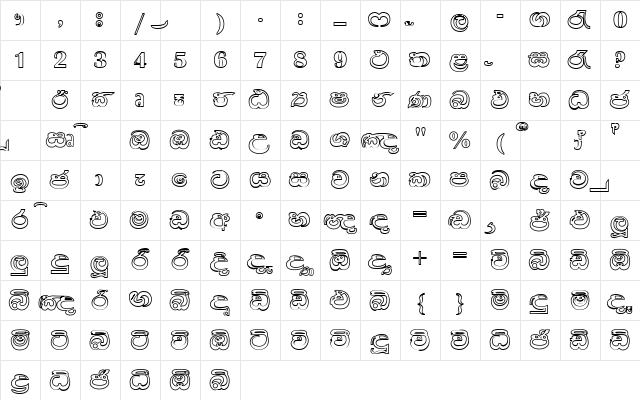
Complete Mi_Dasun*_Hollow_96 Normal glyph index. Displaying only characters natively supported by Mi_Dasun*_Hollow_96 Normal font.
Mi_Dasun*_Hollow_96 is a composed and adaptable typeface that performs quietly and consistently across a wide range of design contexts.